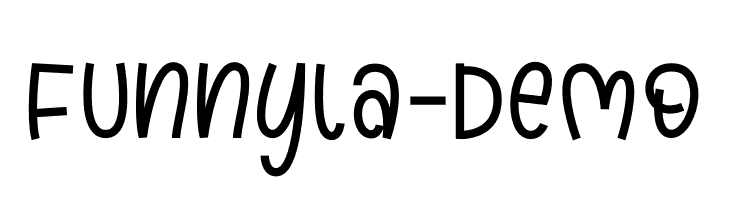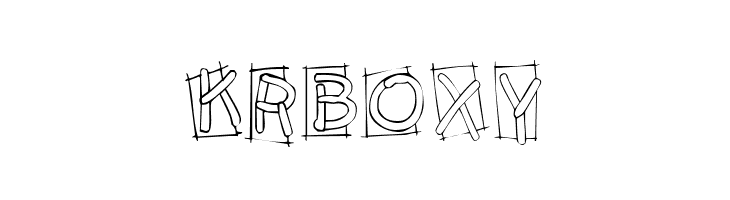
A bold, outlined font with a geometric, spacious design and rounded edges.
A whimsical, hand-drawn font with irregular shapes and playful character.
No valid font glyphs are visible, only placeholder boxes.
A bold, edgy font with sharp, angular lines and a modern, rebellious style.
A display font with each character as a detailed graphic illustration.
A cursive, handwritten-style font with elegant, flowing characters.
A playful, bold font with a bubbly, cartoon-like appearance.
A playful, handwritten font with bold strokes and quirky characters.
A modern, continuous line font with fluid, interconnected characters.